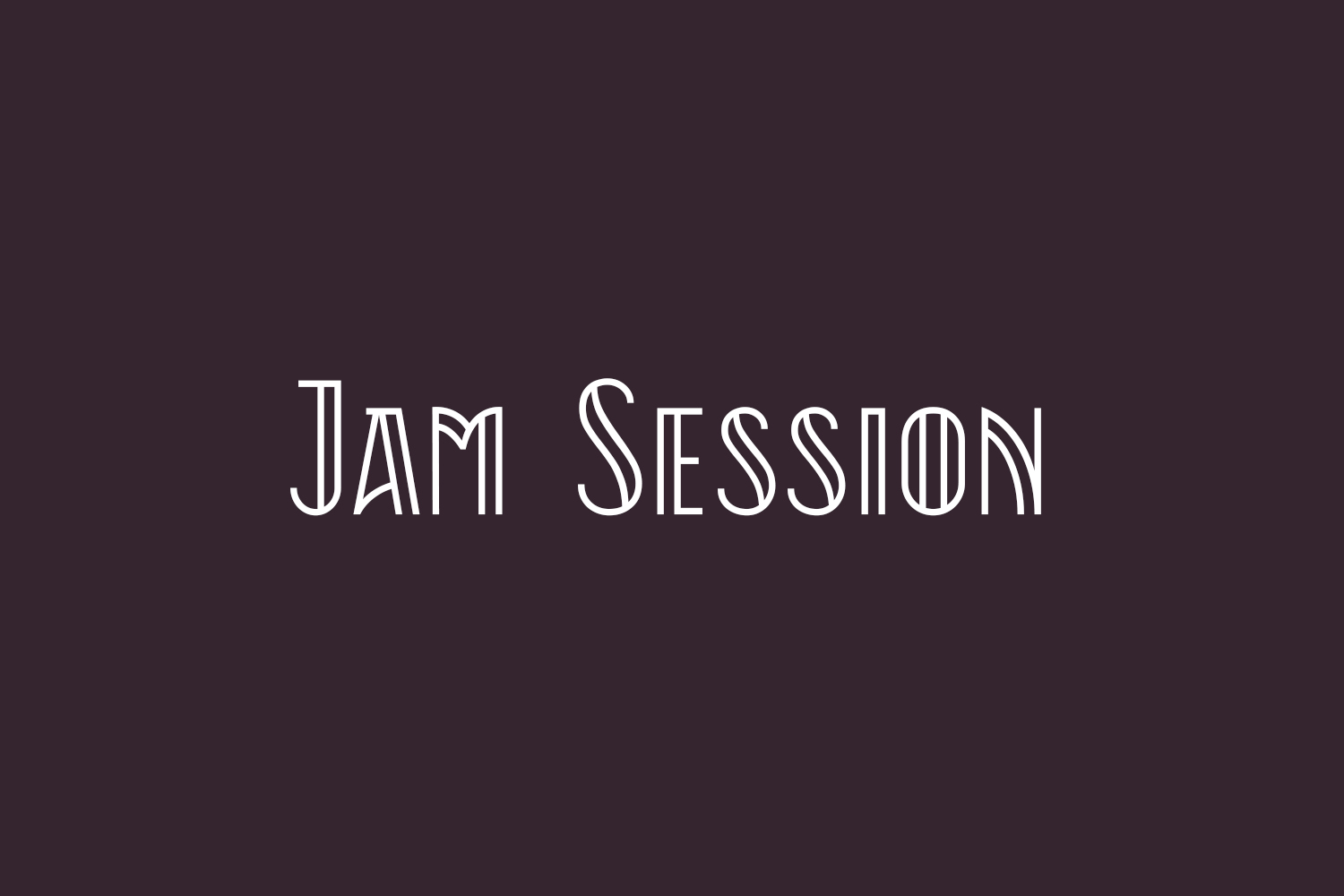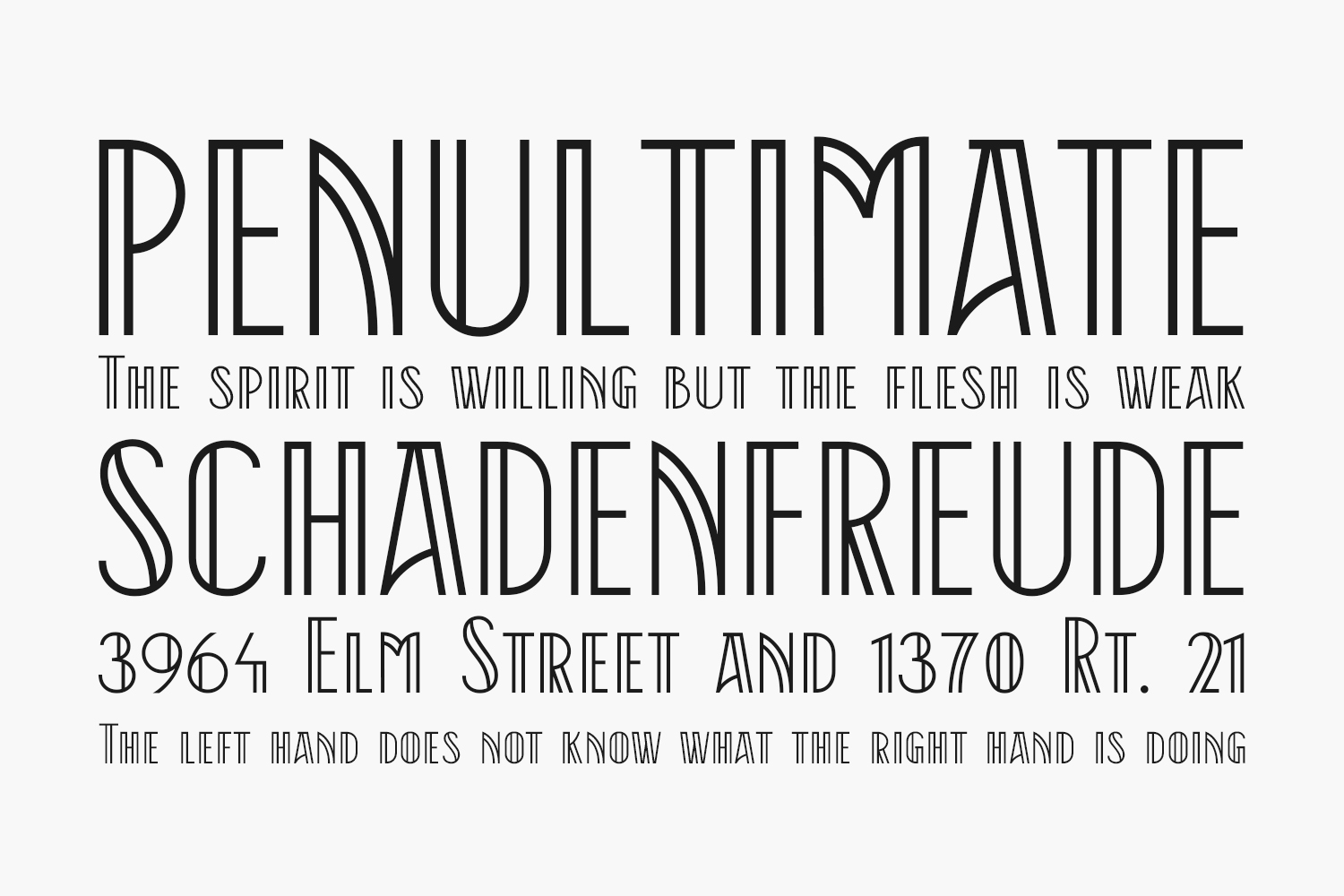
Jam Session Free Font is an Art Deco abstract sans serif All Caps display font. Please note that this is primarily for headlines, logos posters in large sizes. Please purchase the full version for commercial use.
Designed by Roland Huse Design